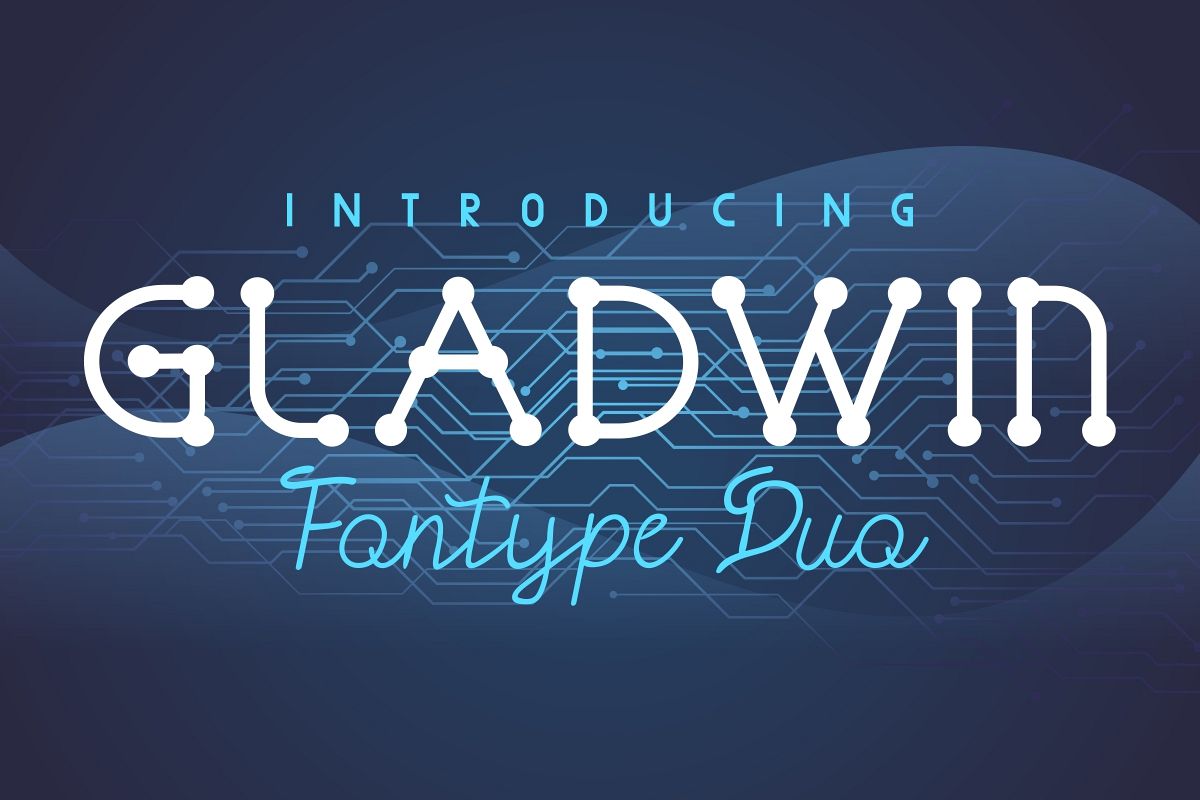
GLADWIN
Hello Everyone! Introducing our newest font : Gladwin ! It’s a duo style : Dots neon and Script handwriting. Great for branding, logo, stationery, business card, signage, flyer, brochure, neon, glowing, network, connection etc. There are many industries that is suitable for this font : startup, electricity, internet agency, technology company, computer, hardware, software, apps etcThis font will Work on PC & Mac with Simple installations. Accessible in the Adobe Illustrator, Adobe Photoshop, Adobe InDesign, even work on Microsoft Word. It’s also PUA Encoded Characters – Fully accessible without additional design software.Purchase with confidence! =)